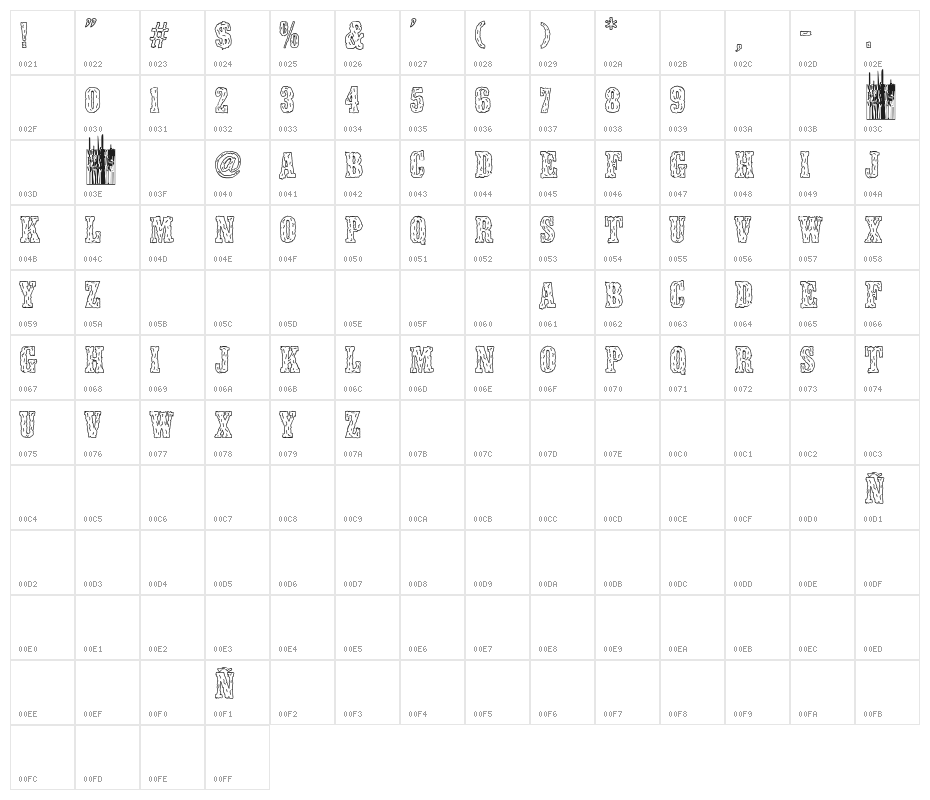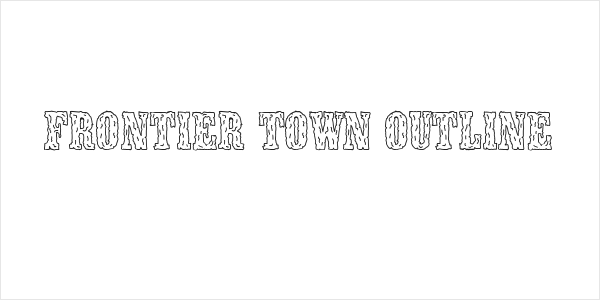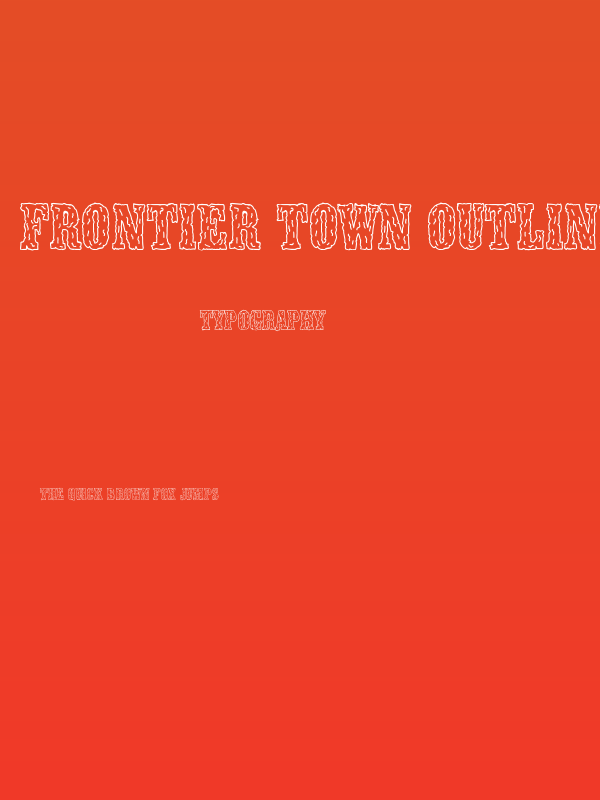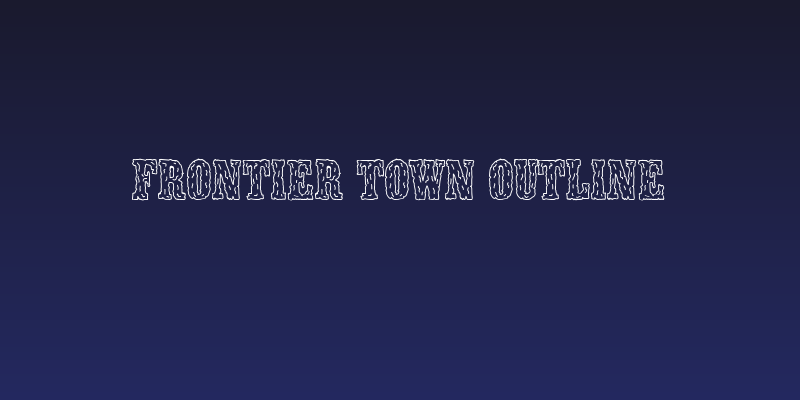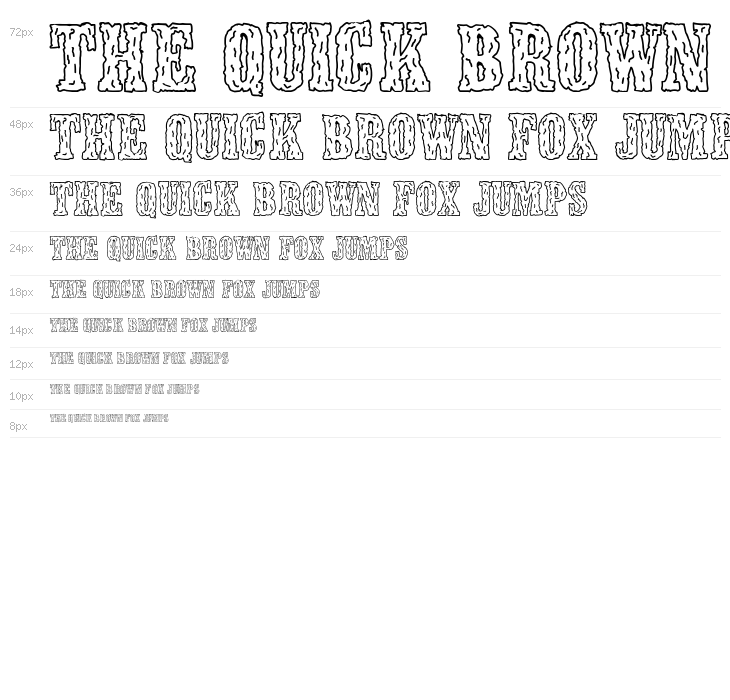
Frontier Town outline Font
Frontier Town outline Description
A bold, decorative outline font with rugged, irregular edges that evoke a hand-drawn, Western or frontier style. The characters are uppercase, wide, and have a playful, textured appearance, making them highly distinctive and attention-grabbing.
| Overall Style | Decorative, Western, Rustic |
| Use Case | Headlines, Logos, Posters, Signage |
| Proposed Projects | Posters, event flyers, signage, themed party invitations, branding for Western or rustic businesses, childrenΓ’β¬β’s books, and display headlines. |